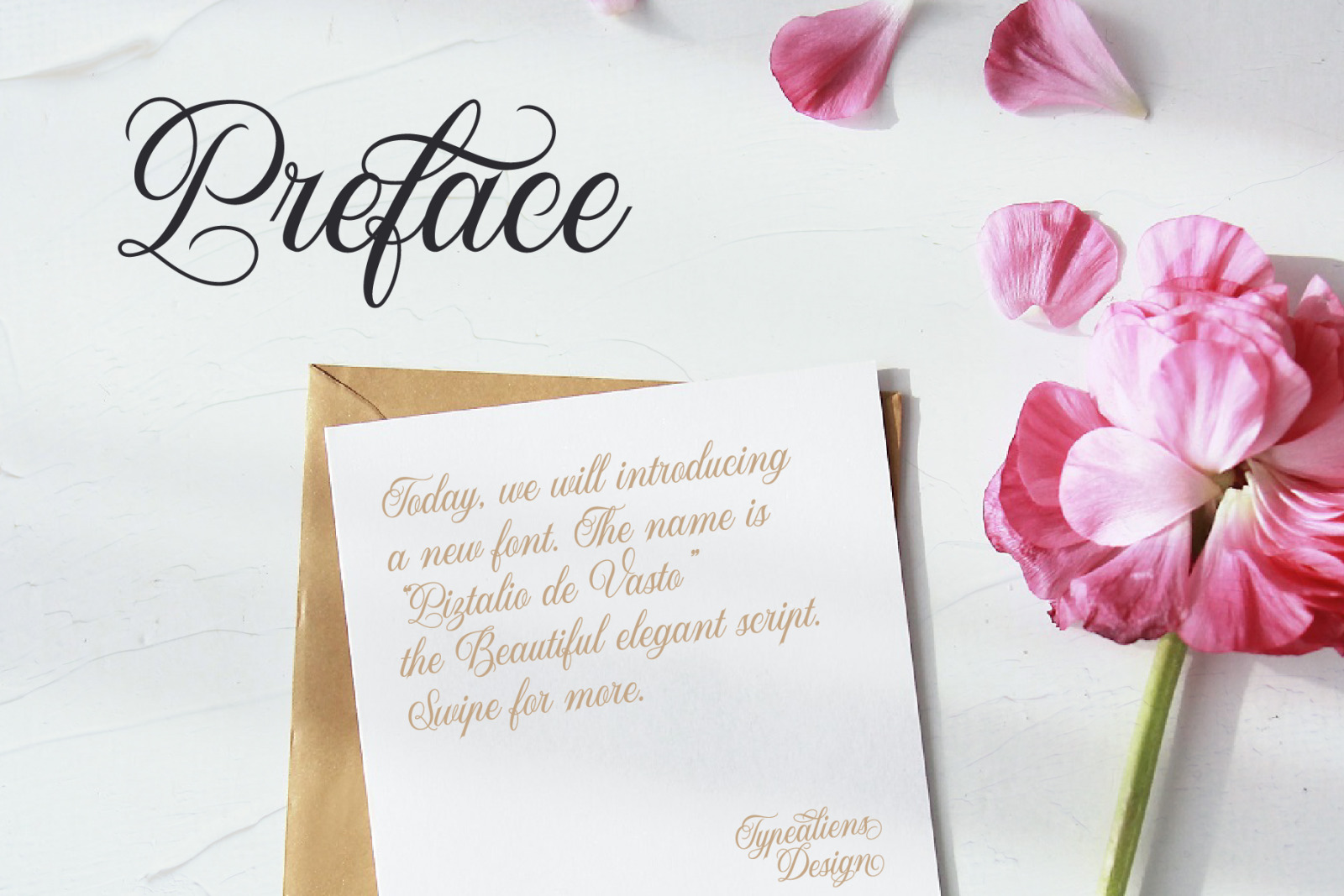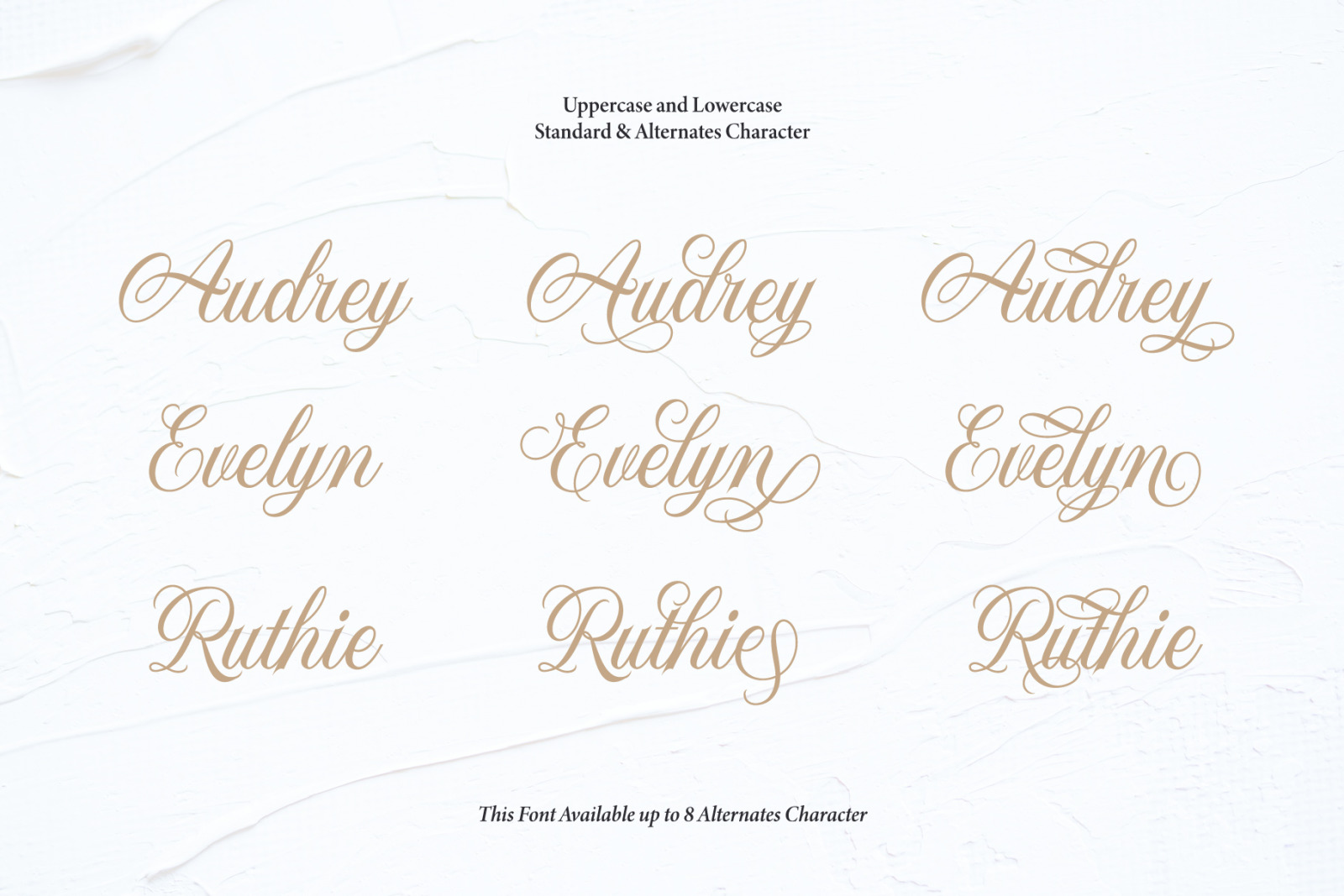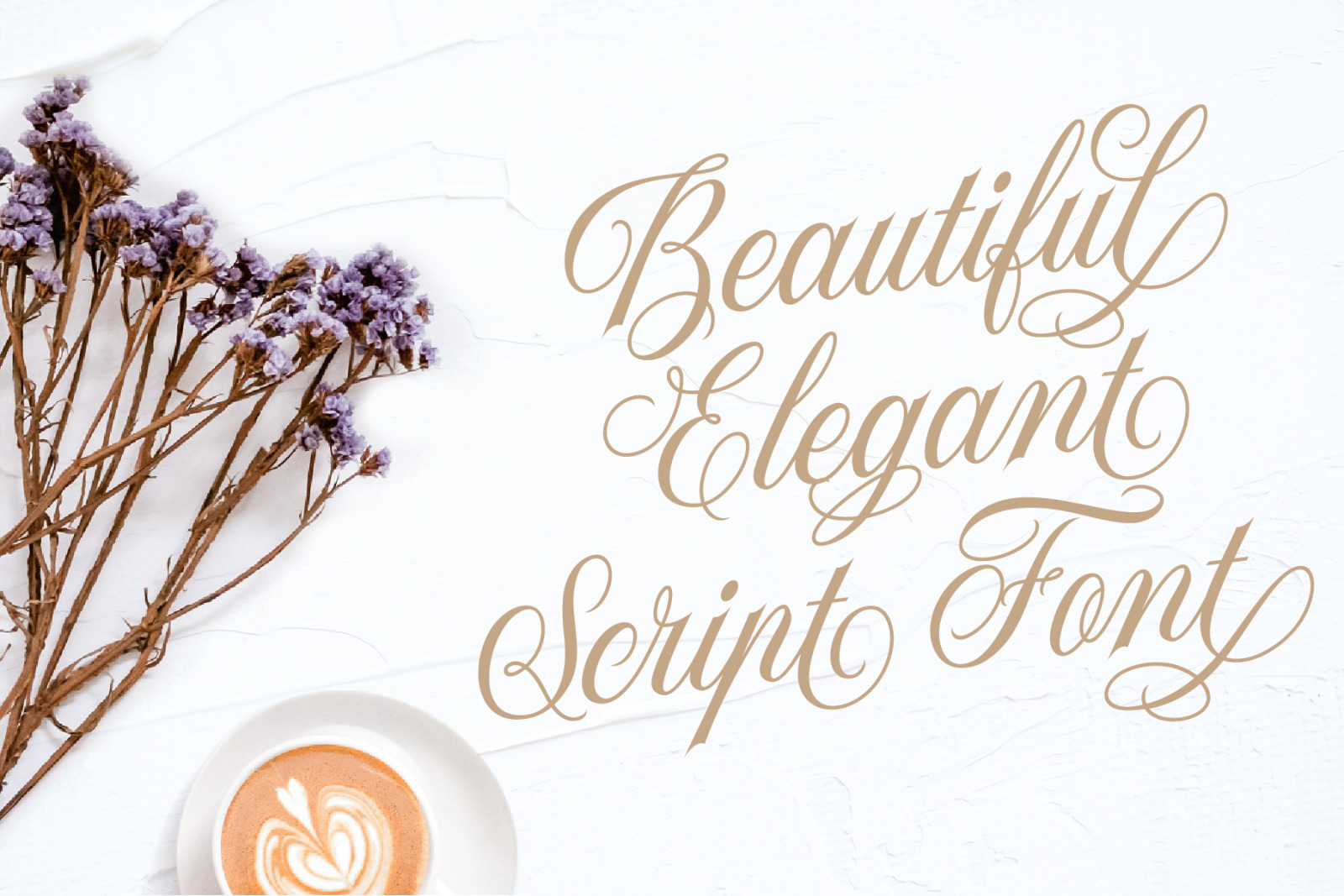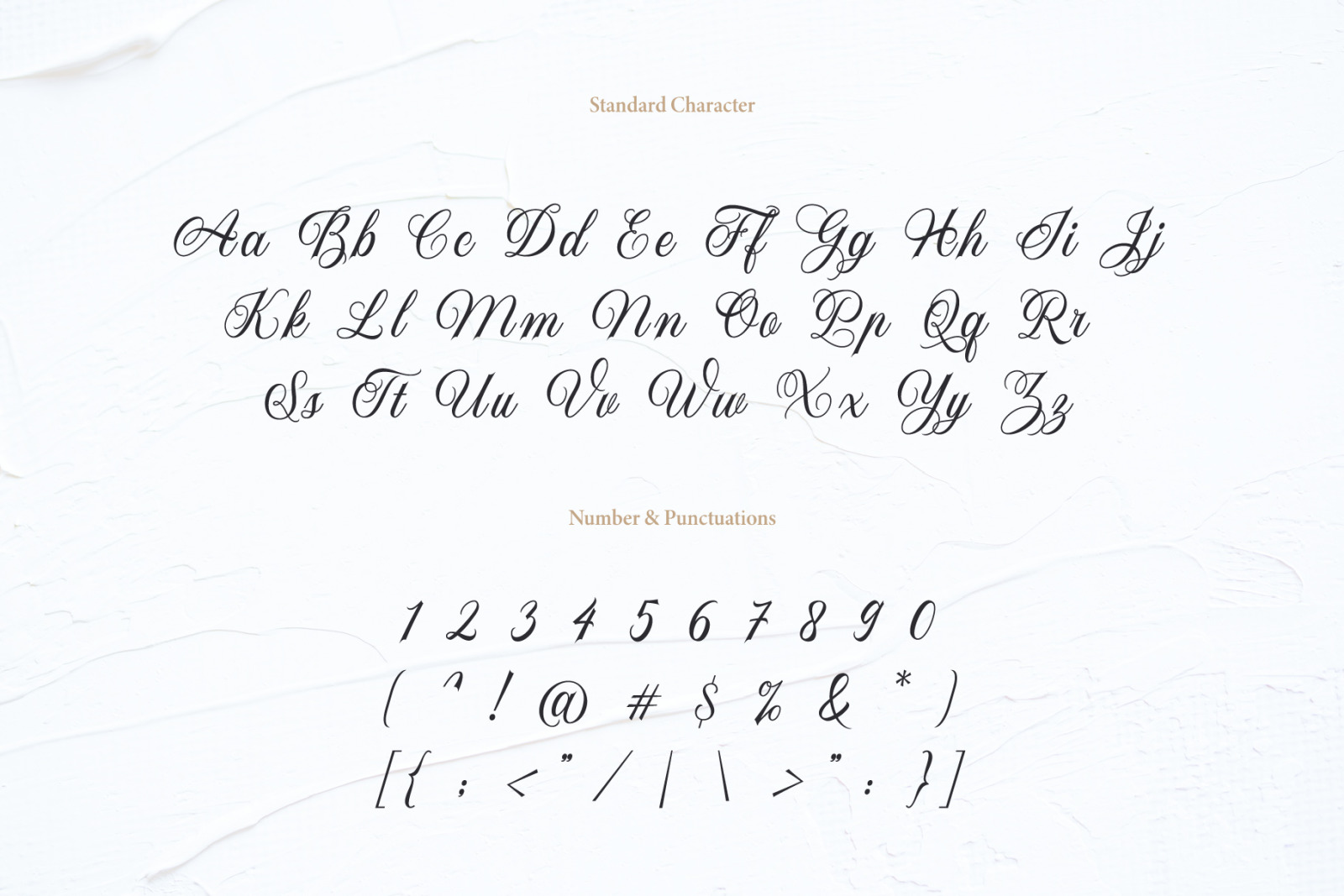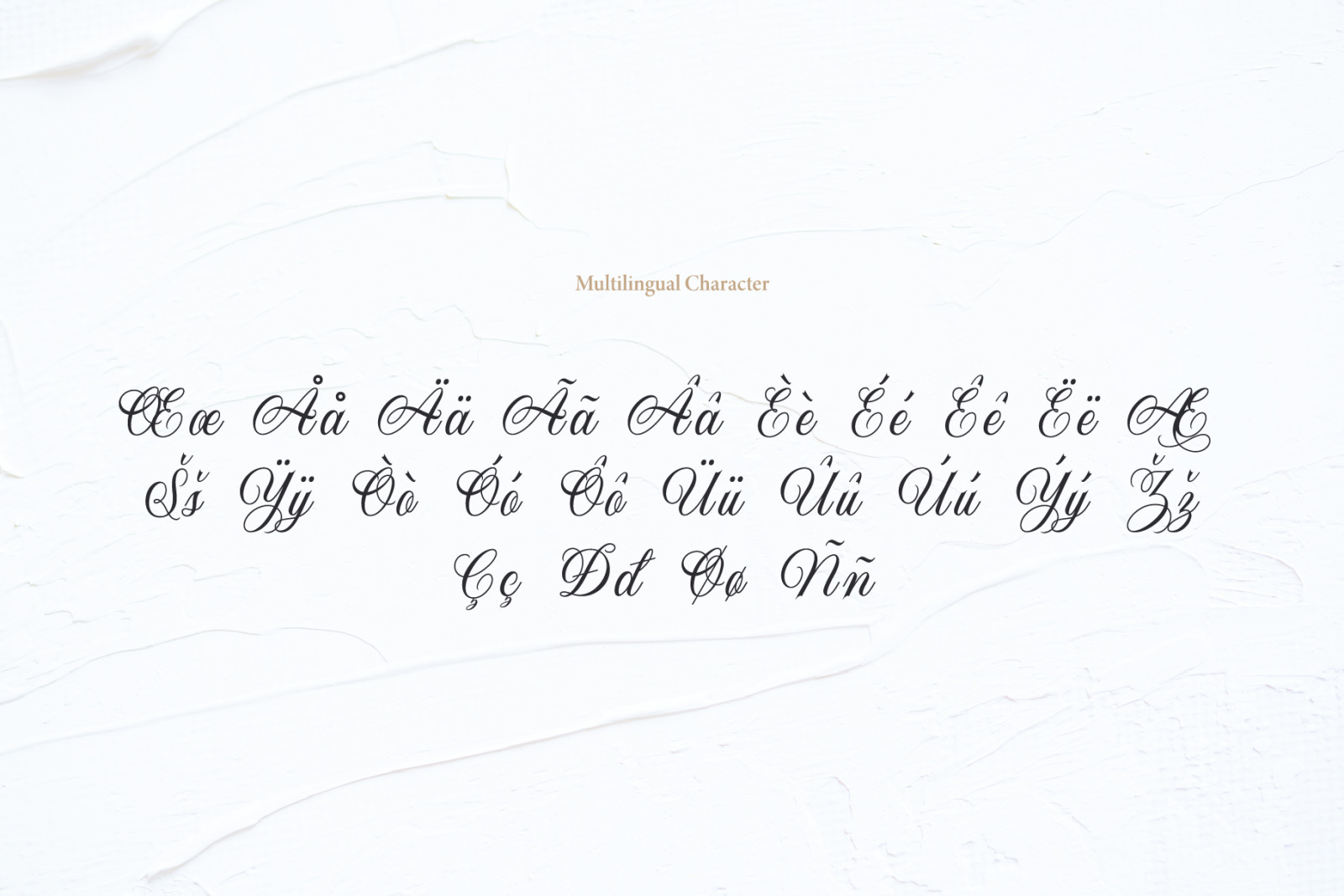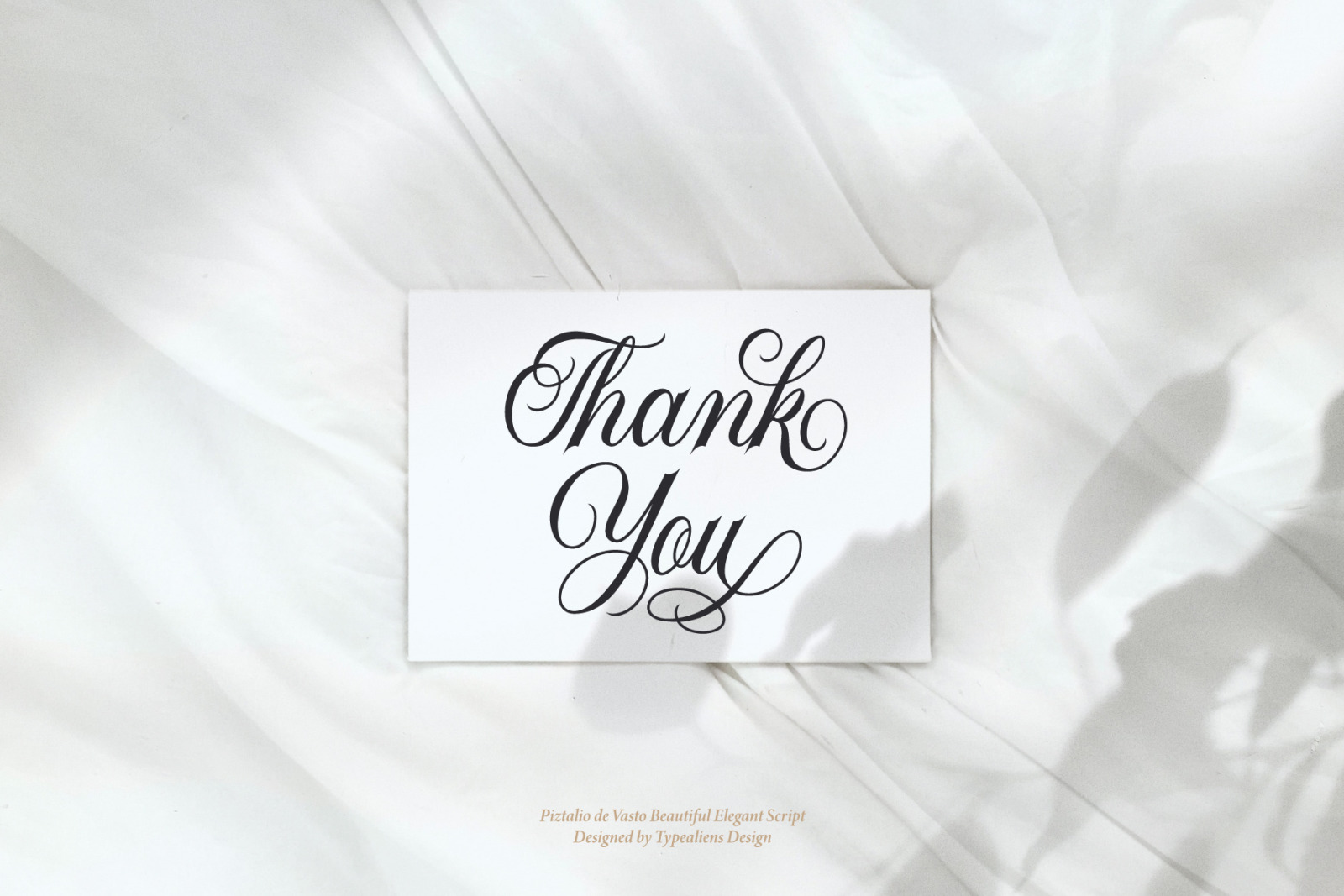
Piztalio de Vasto Font
PIZTALIO DE VASTO is an old style script font with a bit of a feminine touch. This font, which is inspired by the basic form of copperplate letters, is very beautiful, moreover it has quite a lot of variations in each letter (especially lowercase).
Of course, this type of lettering will be very interesting and suitable for wedding invitation designs as a font for the bride's name, creating a beautiful and elegant logo.